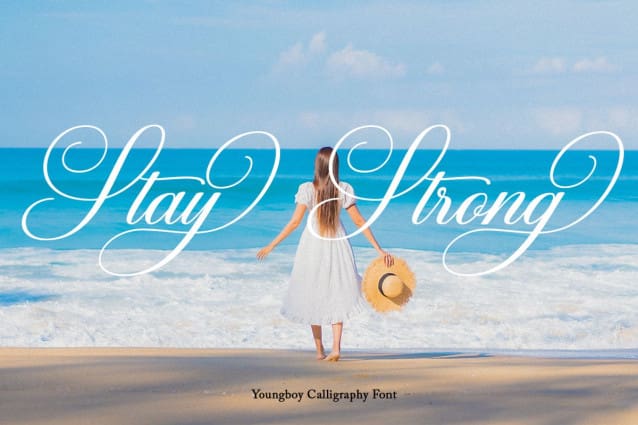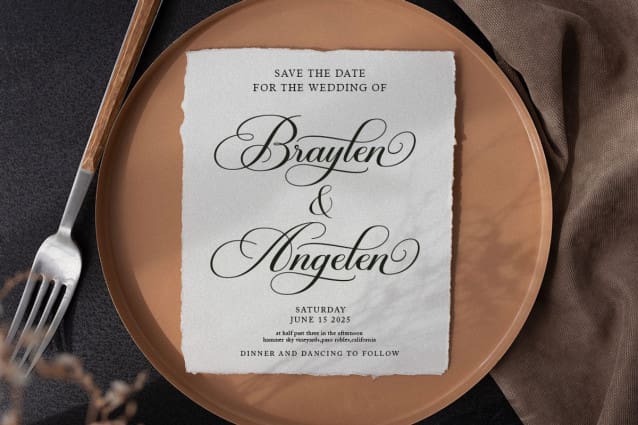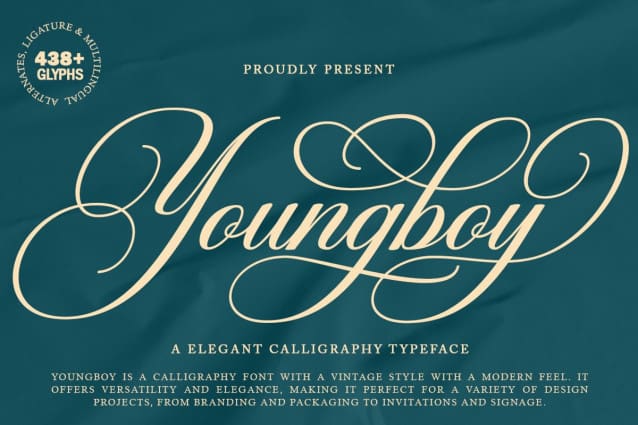
Youngboy Font
Youngboy Font is a calligraphy font with a vintage style with a modern feel.it offers versatility and elegance,Making it perfect for a variety of design projects, from branding and packaging to invitation and signage. Youngboy Font is a calligraphy script font that comes with very beautiful changing characters, a kind of classic decorative copper script with a modern touch, designed with high detail to bring stylish elegance.
Youngboy Font is attractive as a typeface that is smooth, clean, feminine, sensual, glamorous, simple and very easy to read, because there are many fancy letter connections. I also offer a number of viable style alternatives for many letters. The classic style is perfect to be applied in various formal forms such as invitations, labels, restaurant menus, logos, fashion, make up, stationery, novels, magazines, books, greeting / wedding cards, packaging, labels or any type of advertising purpose.